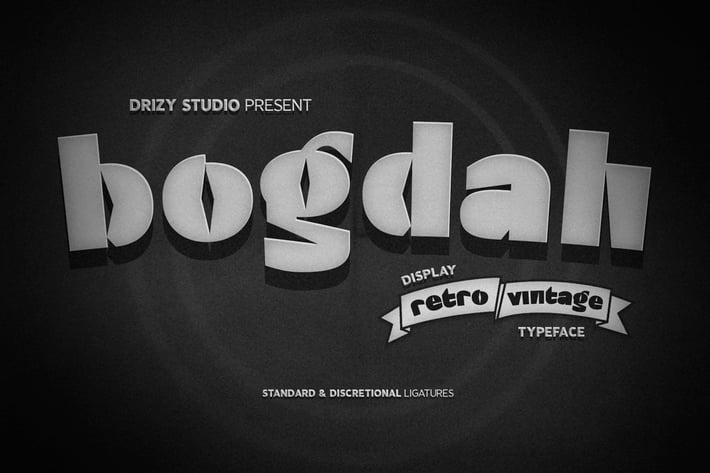
Bogdah - Retro Vintage Font
Bogdah is a Retro Vintage Font Font from Drizy Studio. Offering all the styles you need for your projects.
Bogdah features:
Lowercase Only
Punctuation & Numbers
Ligatures